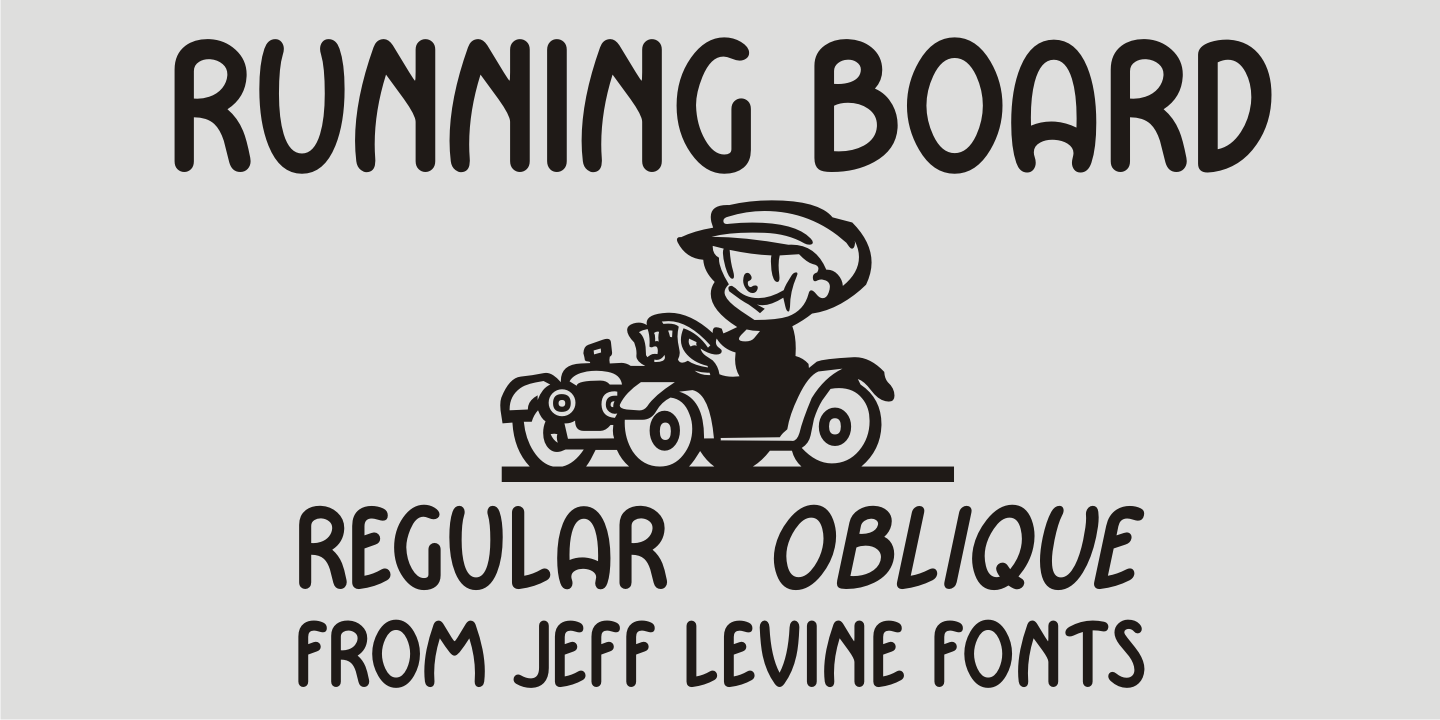
Running Board
During the early years of the 20th Century, America's fascination with automobiles was just beginning.
The cover for a 1916 piece of sheet music for the comedy song 'On the Old Back Seat of the Henry Ford' had the title hand lettered by a round nib pen in an Art Nouveau style.
This is now available digitally as Running Board JNL.